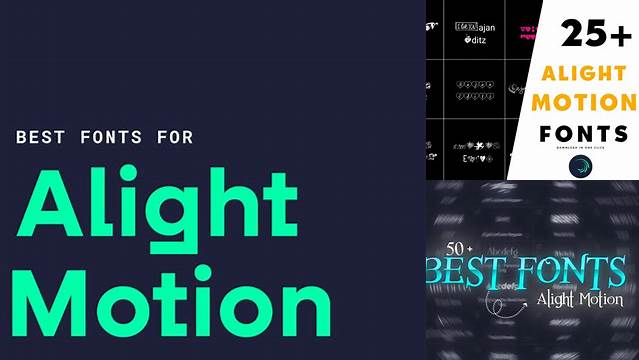
Best Fonts For Alight Motion: Top Picks For Editing
Are you looking to elevate your video editing game with Alight Motion? One crucial aspect often overlooked is the choice of fonts. The right font can make a significant difference in conveying your message and creating a visually appealing project. Let's dive into the world of fonts and explore the best options for your Alight Motion edits, guys!
Why Fonts Matter in Video Editing
Choosing the right font is more than just picking something that looks pretty. It's about communication, readability, and creating a visual hierarchy. Fonts can evoke emotions, set the tone, and reinforce your brand identity. In the context of video editing with Alight Motion, your font choices directly impact the overall impact and professionalism of your project. Imagine using a playful, cartoonish font for a serious documentary β it just wouldn't work, right? That's why understanding font styles and their applications is super important.
Readability is key. If your audience can't easily read the text, they'll likely tune out. Consider the size of the text, the spacing between letters (kerning), and the contrast against the background. A stylish but illegible font is essentially useless. You want your message to be clear and concise. Think about using sans-serif fonts for titles and headings, as they often appear cleaner on screens. For smaller text or body text, serif fonts can sometimes be easier on the eyes due to their distinct letterforms.
Furthermore, the emotional impact of a font shouldn't be underestimated. A bold, strong font conveys confidence and authority, while a delicate, script font might suggest elegance or creativity. Consider the overall mood and theme of your video. Is it a fun, upbeat vlog? A serious, informative tutorial? Or a cinematic short film? The fonts you choose should align with the emotional tone you're aiming for. By strategically selecting fonts that resonate with your content, you can create a more engaging and impactful viewing experience for your audience.
Finally, fonts play a crucial role in brand identity. If you're creating content for a specific brand, using consistent fonts across all your videos helps reinforce brand recognition. This consistency creates a professional and cohesive look, making your videos instantly identifiable. Many brands even have their own custom fonts designed specifically for their marketing materials. Even if you're not working with a big brand, establishing a consistent font palette for your own content can elevate your personal brand and make your videos stand out. So, seriously, pay attention to your fonts!
Top Font Categories for Alight Motion
Before we get into specific font names, let's break down the main font categories that work well in Alight Motion. Knowing these categories will help you narrow down your search and find the perfect fit for your project:
Sans-Serif Fonts: These fonts are clean, modern, and highly readable on screens. They lack the small decorative strokes (serifs) found at the ends of letters, making them ideal for titles, headings, and lower thirds. Think of fonts like Helvetica, Arial, and Montserrat β they're classic for a reason! Sans-serif fonts offer a straightforward and professional look, ensuring your text remains clear and legible even in fast-paced video edits. They are particularly effective for conveying a sense of modernity, simplicity, and clarity, making them a go-to choice for a wide range of video projects.
Serif Fonts: Serif fonts have those small decorative strokes, giving them a more traditional and elegant feel. While they can be great for body text in print, they can sometimes be a bit harder to read on screens, especially at smaller sizes. But don't rule them out entirely! Fonts like Times New Roman, Georgia, and Playfair Display can add a touch of sophistication to your titles or credits. The key is to use them sparingly and ensure they are large enough to maintain readability. Serif fonts are excellent for projects that require a touch of classic elegance, such as wedding videos, documentaries, or cinematic pieces aiming for a timeless aesthetic.
Script Fonts: Script fonts mimic handwriting and can add a personal and stylish touch to your videos. However, they can also be tricky to use. Overusing script fonts can make your text difficult to read, so it's best to reserve them for short phrases, titles, or accent elements. Think of fonts like Brush Script, Pacifico, and Lobster. When used effectively, script fonts can inject personality and flair into your video projects. They are particularly suitable for creating a warm, inviting, or handcrafted feel, making them a popular choice for lifestyle vlogs, travel videos, and creative projects.
Display Fonts: This is where you can get really creative! Display fonts are designed to be eye-catching and unique. They come in a wide variety of styles, from bold and futuristic to quirky and playful. Use these sparingly for titles or short phrases where you want to make a statement. Examples include Impact, Bebas Neue, and ChunkFive. Display fonts are powerful tools for grabbing attention and setting the tone of your video. They are often used in intros, outros, and promotional materials to create a memorable visual impact. Just remember to balance creativity with readability and ensure your chosen display font complements the overall style of your video.
Specific Font Recommendations for Alight Motion
Okay, let's get down to the nitty-gritty! Here are some specific font recommendations that work beautifully in Alight Motion, categorized for your convenience:
Sans-Serif Champions
Montserrat: This is a versatile and modern sans-serif font that works well for just about anything. It's clean, legible, and comes in a variety of weights, giving you plenty of options. Montserrat is a super reliable choice for titles, headings, and body text, ensuring your message is conveyed with clarity and style. Its balanced letterforms and wide range of weights make it a go-to option for video editors seeking a contemporary and professional look.
Level Up Your Alight Motion Edits with the Perfect Fonts
Choosing the right fonts is an essential part of creating professional-looking videos in Alight Motion. By understanding font categories, exploring different font options, and following these tips, you can elevate your video editing game and create visually stunning content that captivates your audience. So go ahead, experiment with different fonts, and find the perfect ones to make your videos shine, guys! You've got this! Let your creativity flow, and watch how the perfect fonts transform your Alight Motion projects from good to absolutely amazing. The power is in your hands β or rather, at your fingertips!